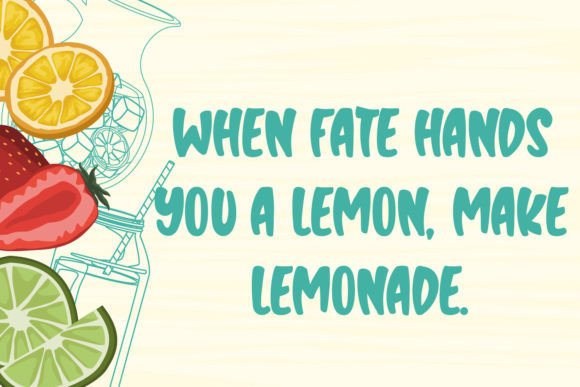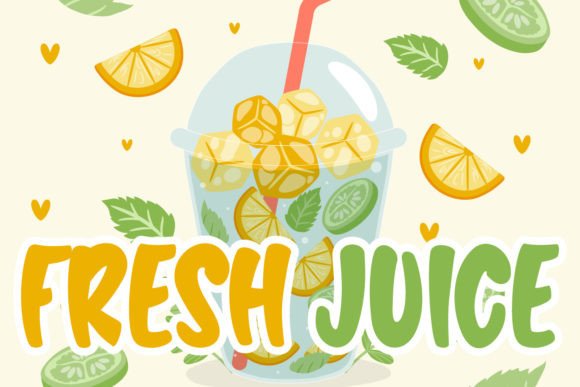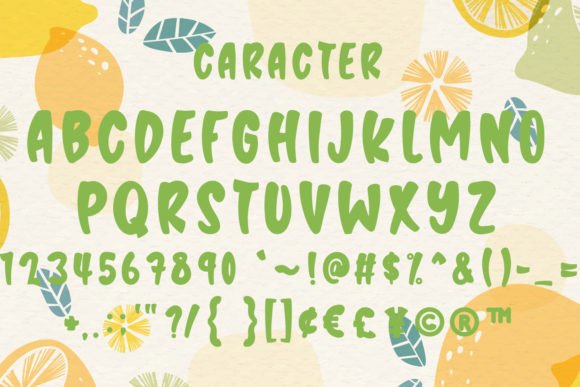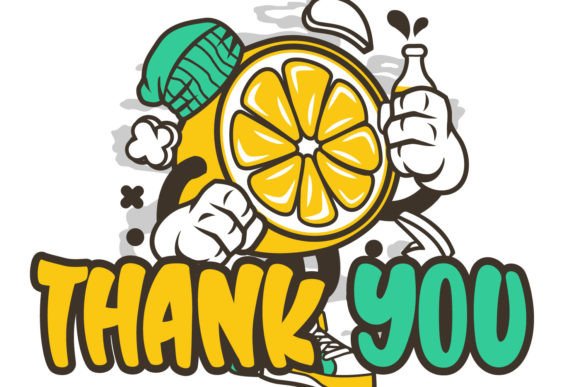
Introduction to Lemon Mom Font
Lemon Mom is a simple, cute and cool display font.
Add this friendly lettered font to your designs and notice how it makes them come alive .
Key Features of Lemon Mom Font
Why Choose Lemon Mom Font?
Lemon Mom Font offers exceptional quality and versatility, making it a valuable addition to your design toolkit. Whether you’re creating for personal projects or commercial use, Lemon Mom Font delivers professional results.